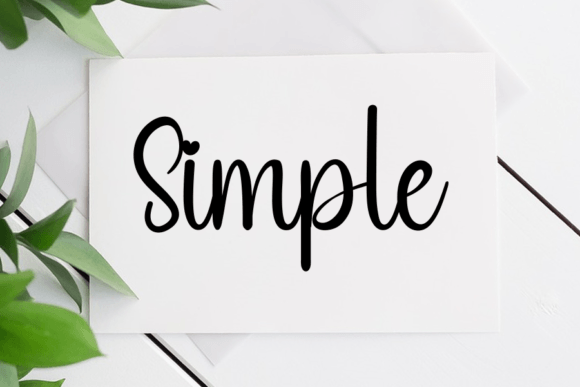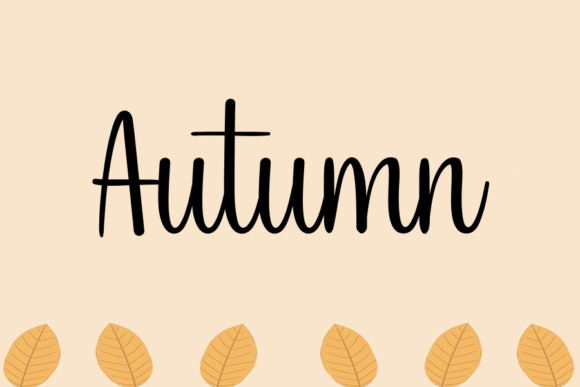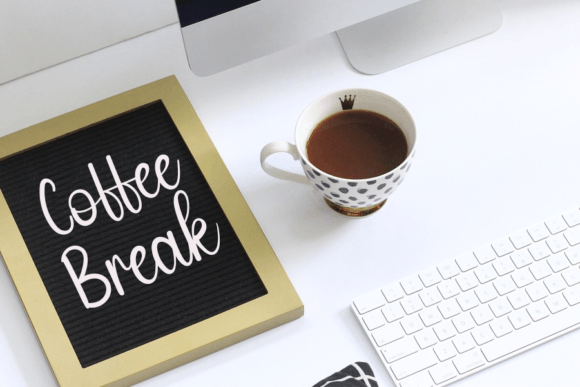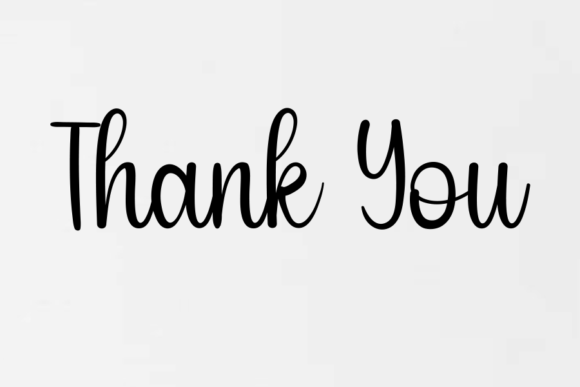
The Art of Handwritten Perfection: Introducing Autography Font
Do you remember the feeling of holding a pen and putting your thoughts onto paper? The scratch of the nib, the flow of your handwriting, and the personal touch it adds to any piece of art. That’s the magic of creating something truly unique and authentic. As designers, we often strive to capture that essence in our digital work, and that’s where the Autography Font comes in – a simple yet versatile handwritten font that brings a touch of natural charm to any project.
Designed to evoke the feeling of handwritten notes, the Autography Font is perfect for designers looking to add a personal touch to their work. Whether it’s a greeting card, a headline, or a social media post, this font is guaranteed to make your design stand out. Its versatility and simplicity make it a valuable addition to any designer’s toolkit.
Key Features of Autography Font
- Unique Characteristics: The Autography Font features a distinctive, handwritten style with subtle flair and organic feel, making it ideal for creative and artistic applications.
Designer Review: Autography Font
Autography Font is an intriguing script font that initially caught my eye with its unique, handwritten feel. ✨ Here are some aspects where it truly shines:
- ✨ Expressive and organic feel, perfect for creating a personal and emotional connection with the viewer.
- ✨ Excellent for use in invitations, social media graphics, and other design projects where a touch of elegance is required.
- ✨ The font is highly versatile, suitable for a wide range of design applications, from print to digital media.
However, I do have some concerns about its limitations:
- ⚠️ The font may not be ideal for formal or corporate designs, as its casual nature might detract from the professionalism.
- ⚠️ The character set is relatively limited, making it unsuitable for long-form texts or extensive editing.
- ⚠️ Some characters may require manual adjustments to achieve the desired spacing and alignment.
Overall, Autography Font is a beautiful and expressive script font that excels in creative and personal design projects. While it may not be the best choice for every occasion, it’s a great addition to any designer’s toolkit. With some careful consideration and application, Autography Font can help designers create truly captivating and memorable designs.
For optimal results, use Autography Font in a clear and readable context. Avoid using it for large blocks of text. Use it sparingly to add emphasis and visual interest.
Autography Font is commonly used in:
– Social media graphics and advertisements
– Fashion and beauty branding
– Artistic and creative projects
Q: Can I customize Autography Font to fit my project’s specific needs?
Yes, Autography Font includes a range of customization options to help you achieve your desired look. These include:
* Stylistic alternates: Replace standard characters with more elegant or expressive variants.
* Ligatures: Combine two or more letters into